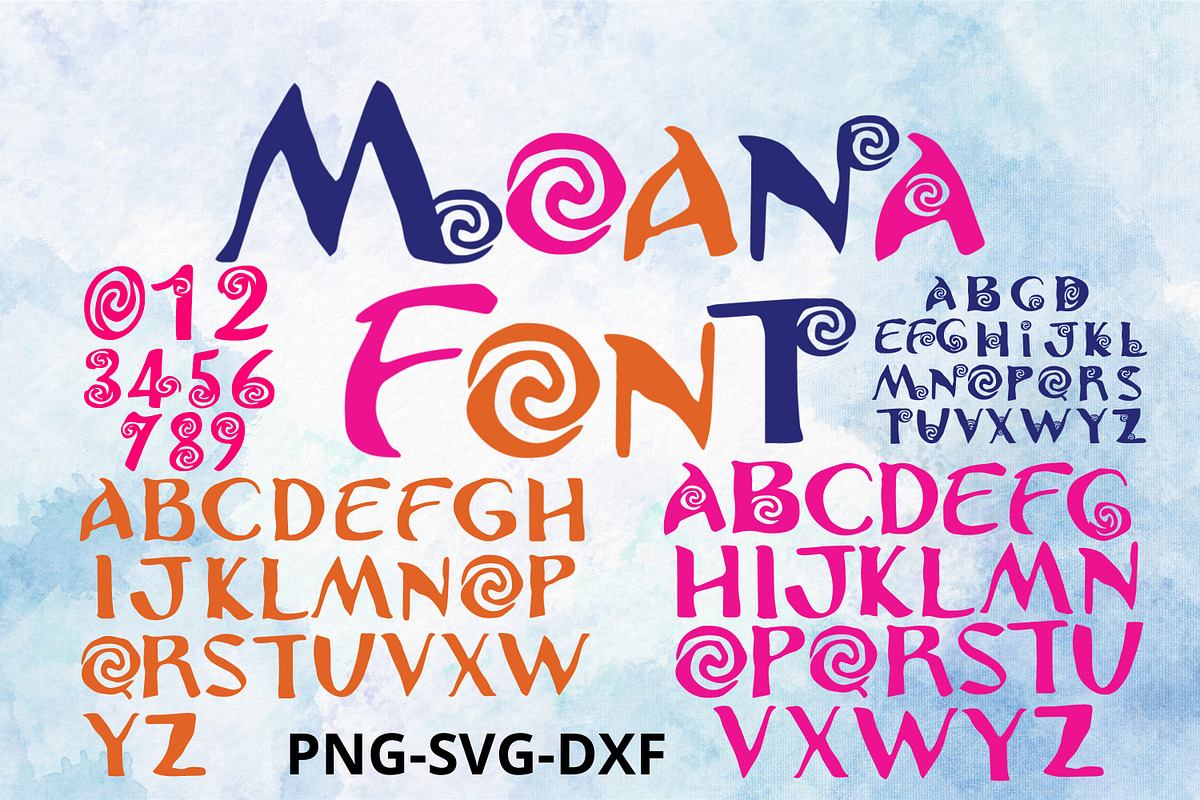
Moana Fonts in SVG-PNG-DXF Free Download
The Moana Fonts in SVG-PNG-DXF Free Download is a beautifully crafted and versatile font set that combines stunning letterforms with the flexibility of multiple file formats. Available in SVG, PNG, and DXF formats, this font collection is perfect for a variety of design projects, from digital content to physical craft work. Whether you're creating stunning logos, greeting cards, t-shirt designs, or custom merchandise, Moana Fonts gives you the creative freedom to bring your ideas to life.